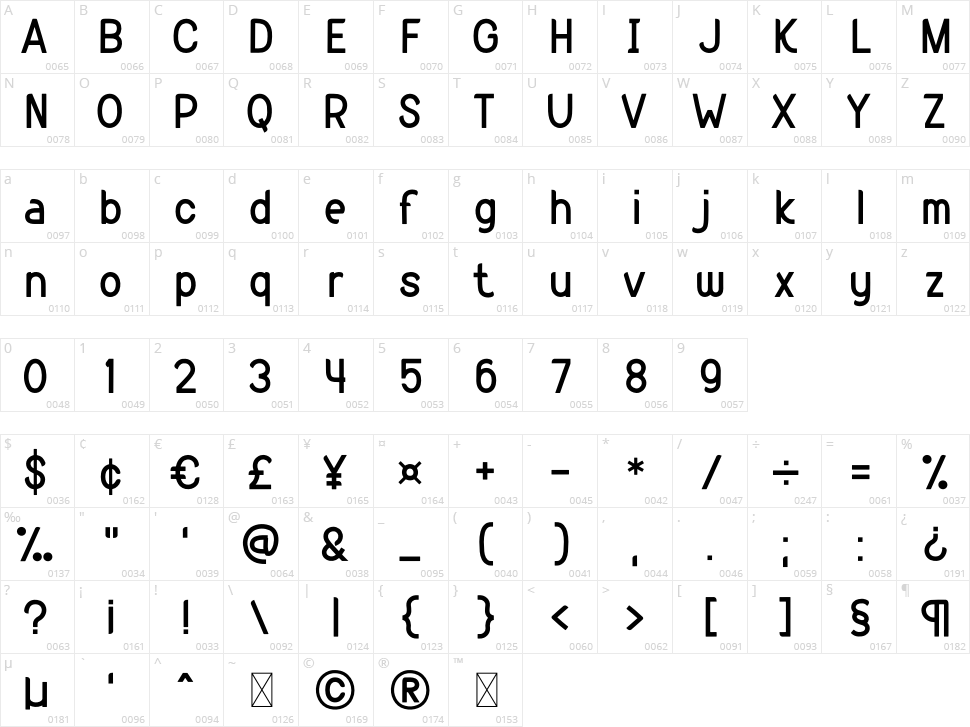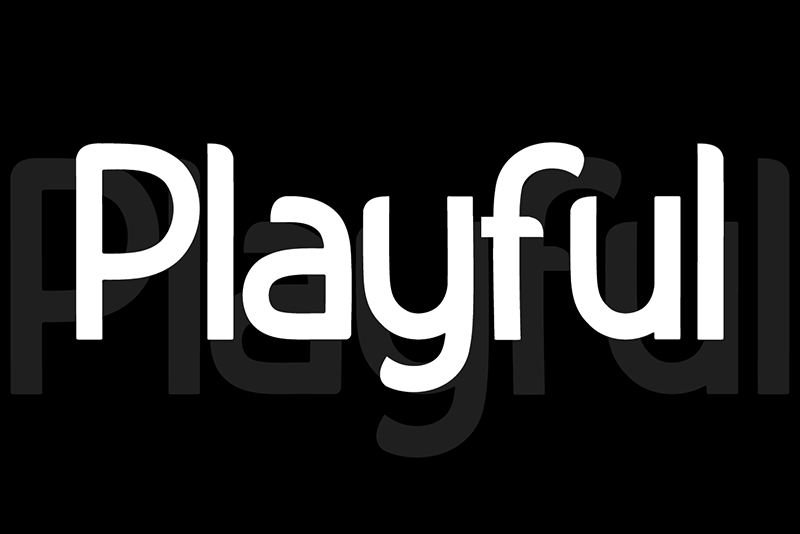
Playful
Note of the author Playful is a minimal and neat sans serif font that can easily be matched to a large set of projects. So add it to your creative ideas, and notice how it makes them stand out!
Designer Name: Erik Supriyanto